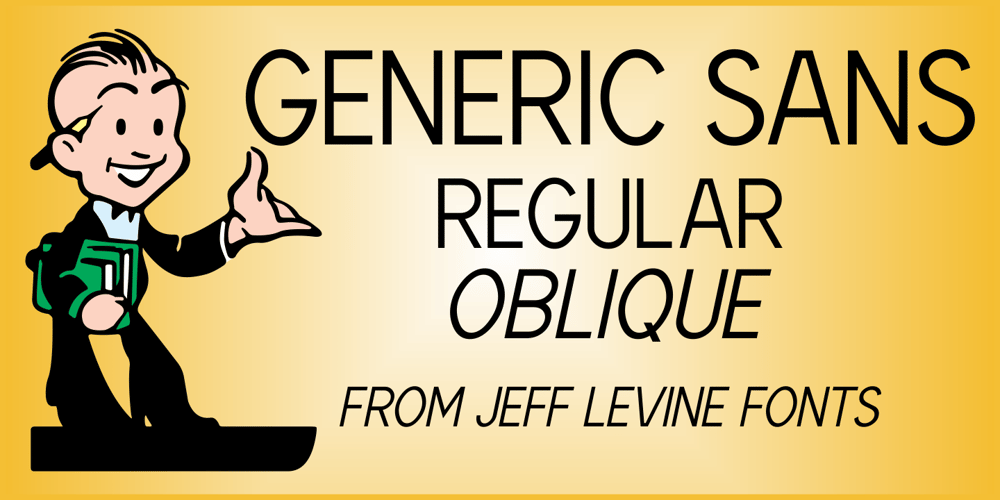
Generic Sans JNL Font Family was designed by Jeff Levine and published by Jeff Levine. Generic Sans JNL contains 2 styles and family package options. Generic Sans JNL was modeled after “Condensed Blair” from the 1907 specimen book of the Inland Type Foundry, and is available in both regular and oblique versions.